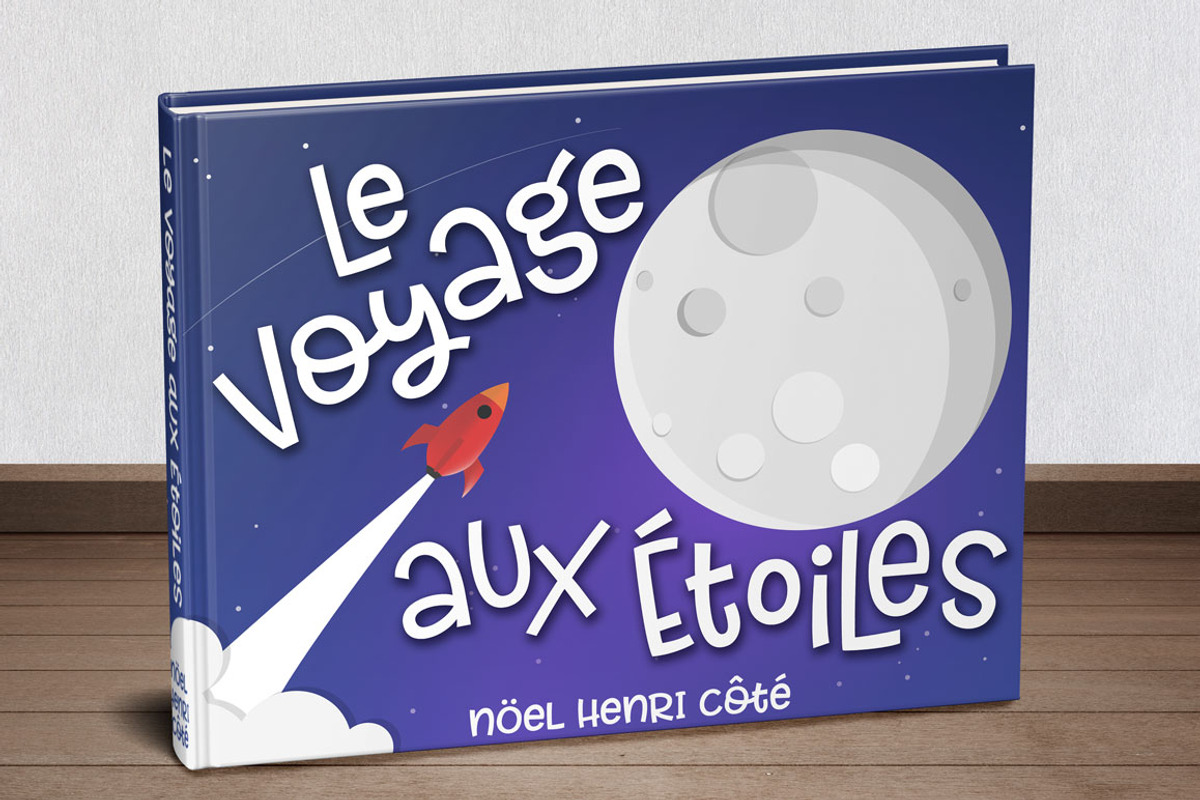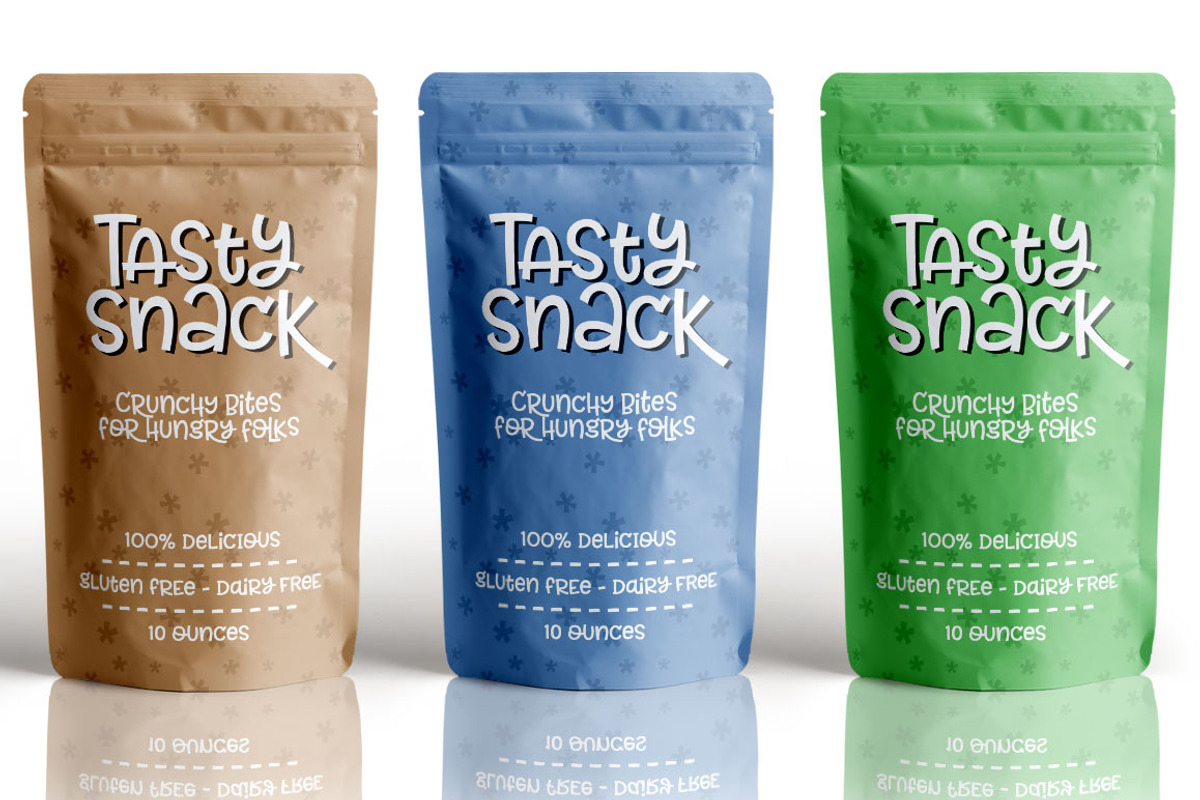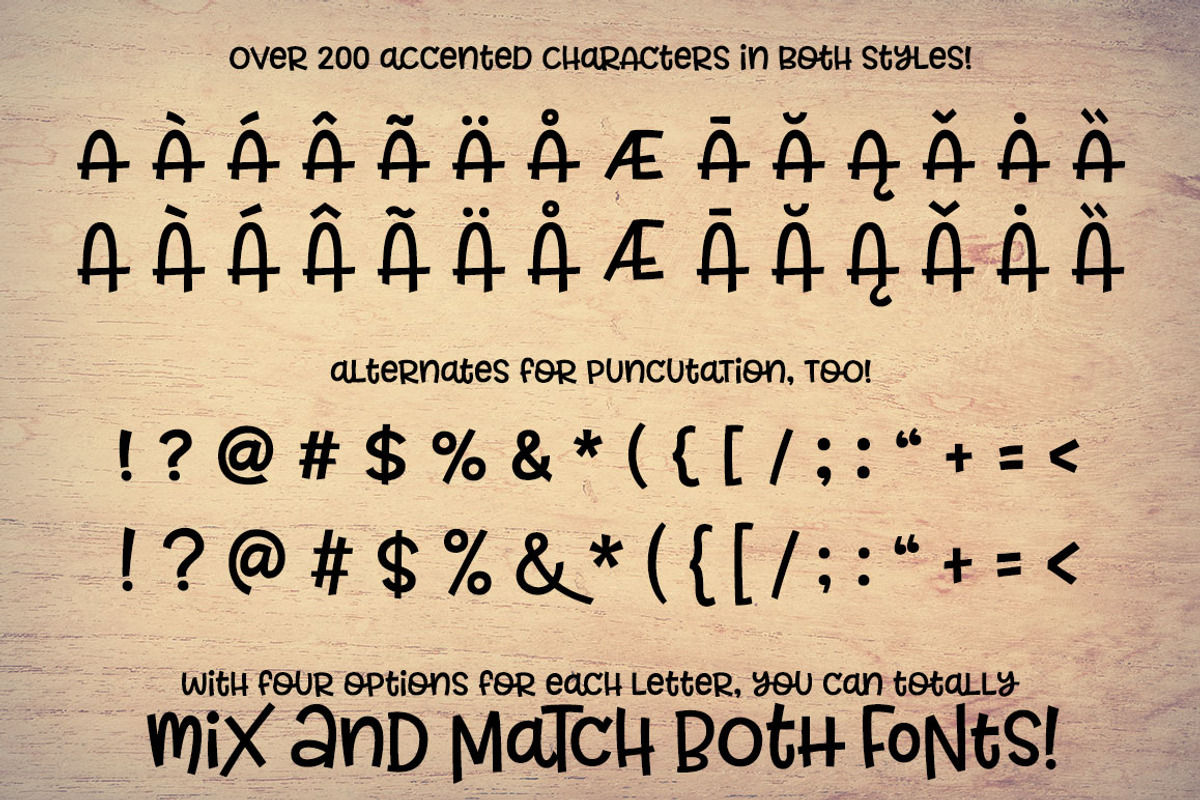
Allspice: a fun mixed-case font!
Allspice: a fun mixed-case font! by Missy Meyer is a font selected for branding, posters, packaging, typography.
- Plus, it comes with a full second font file with alternates, to give you even more options!
- It's a mixed-case font (uppercase and lowercase are all the same height) so you can mix and match letters within a word.
- Not only are the letters alternates -- all of the numbers, punctuation, and accented characters are alternates too!
Why Allspice: a fun mixed-case font! is worth a look
Allspice: a fun mixed-case font! by Missy Meyer fits naturally into Branding, posters, packaging, typography.